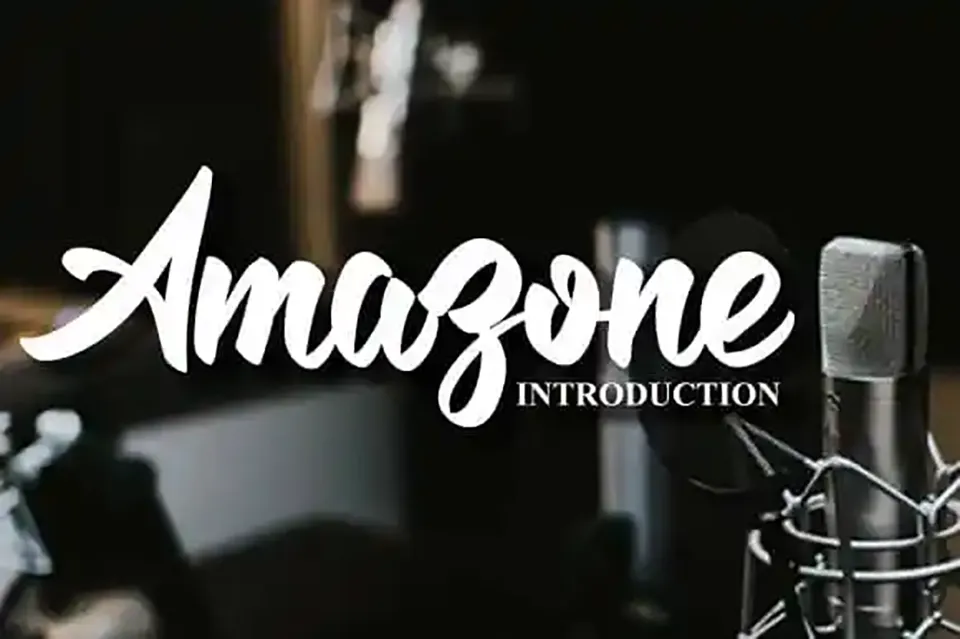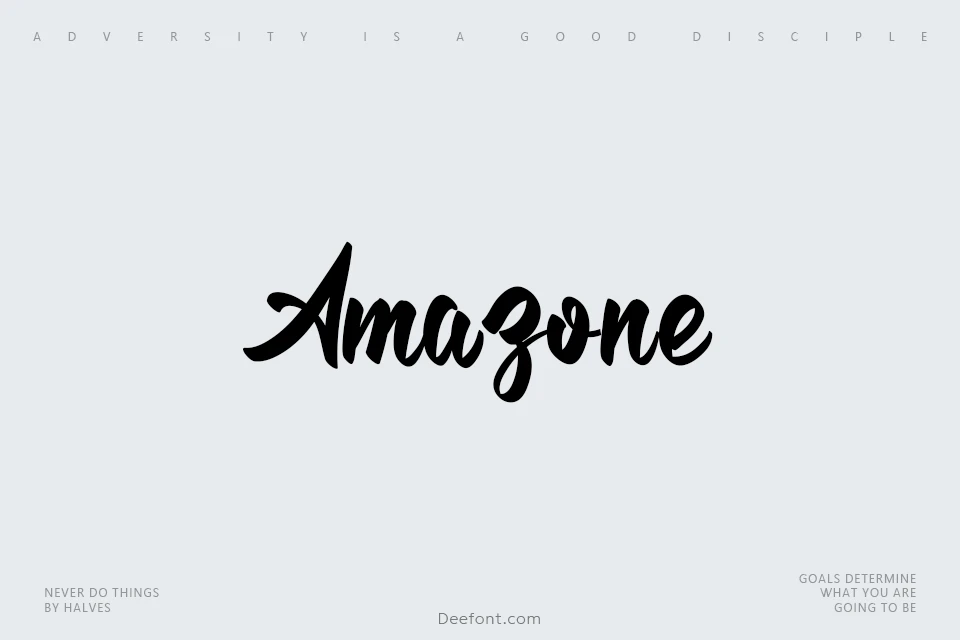
Amazone Calligraphy Font
Amazone Calligraphy Font is a beautifully handcrafted script typeface that exudes elegance and charm. Its smooth, flowing strokes and natural curves make it perfect for a wide range of creative projects, including logos, product packaging, greeting cards, headers, and social media designs. Amazone’s casual yet sophisticated style ensures readability while adding a touch of personality to your work. Whether used as a bold headline or a delicate accent, this versatile font adapts seamlessly to any design context. With support for international languages and a rich set of glyphs, Amazone Calligraphy Font is the ideal choice for stunning hand-lettered creations.